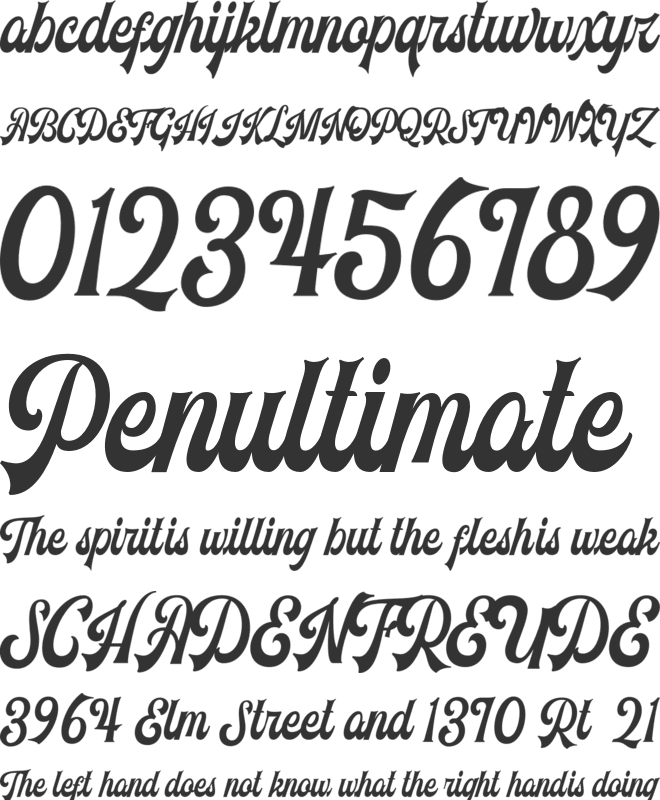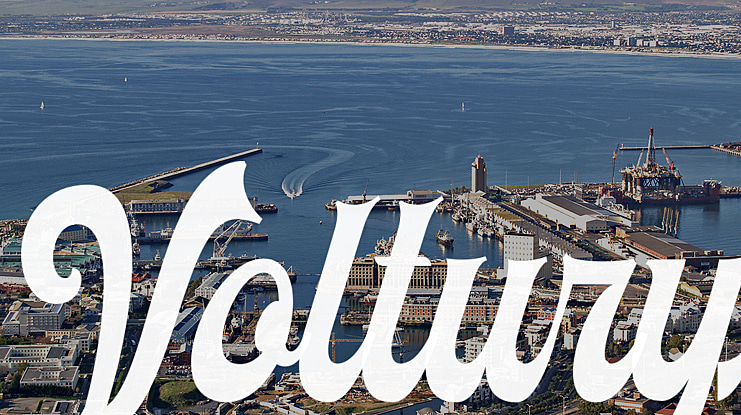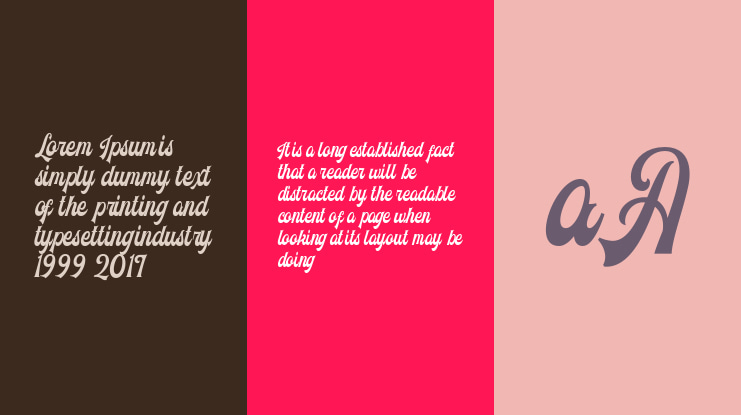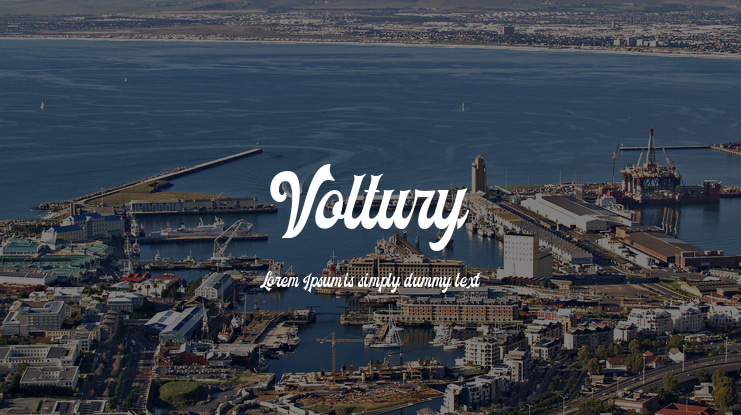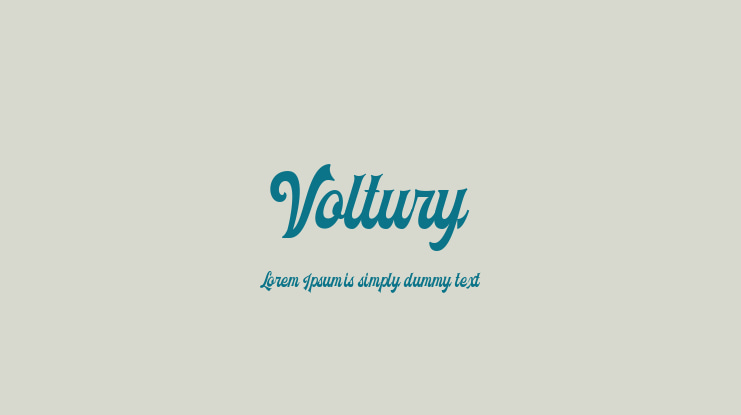
Voltury Font
Now let us introduce our new font called “Voltury”
Voltury is a vintage typeface made by our hand lettering, this script created carefully to make a good flow and great character, this font made inspired by American vintage signage and packaging.